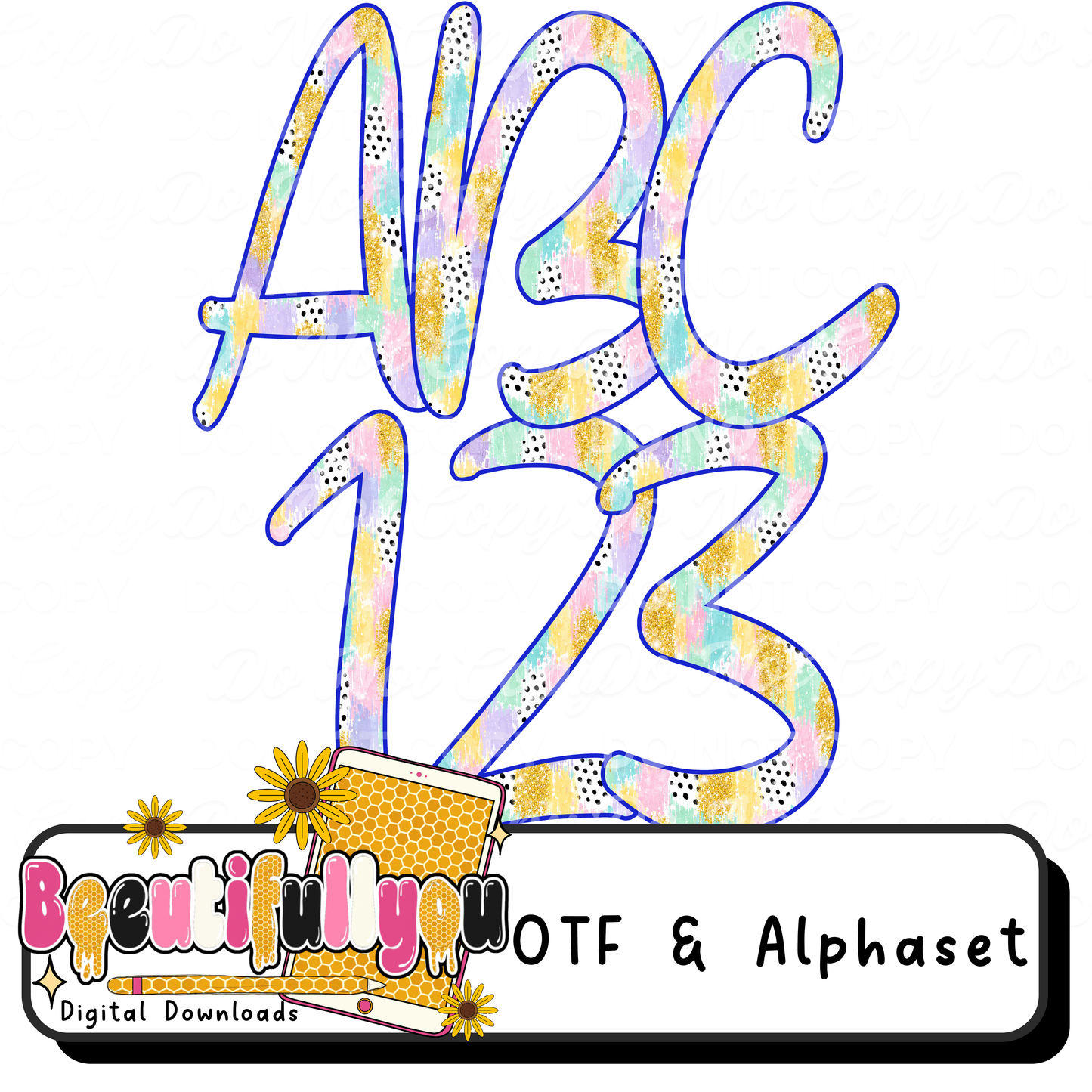
Pastel Gold Glitter Alpha | OTF Font & PNG Alphabet | Trendy Brush Stroke Letters for Boutique & Shirt Designs
✨ Soft pastels + gold glitter = chef’s kiss.
This Pastel Gold Glitter Alpha is the perfect mix of playful and luxe — featuring hand-painted pastel strokes layered with gold glitter accents and a bold outline that makes every design POP.
🎨 Design Style
✨ Soft pastel rainbow brush strokes
✨ Gold glitter textured accents
✨ Speckled + paint stroke detail
✨ Bold outlined lettering for high visibility
• Colors/design are built into each letter